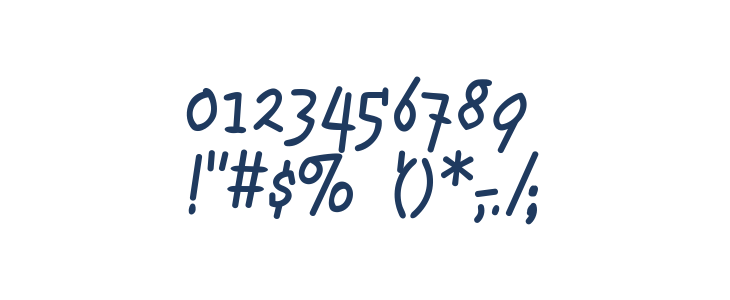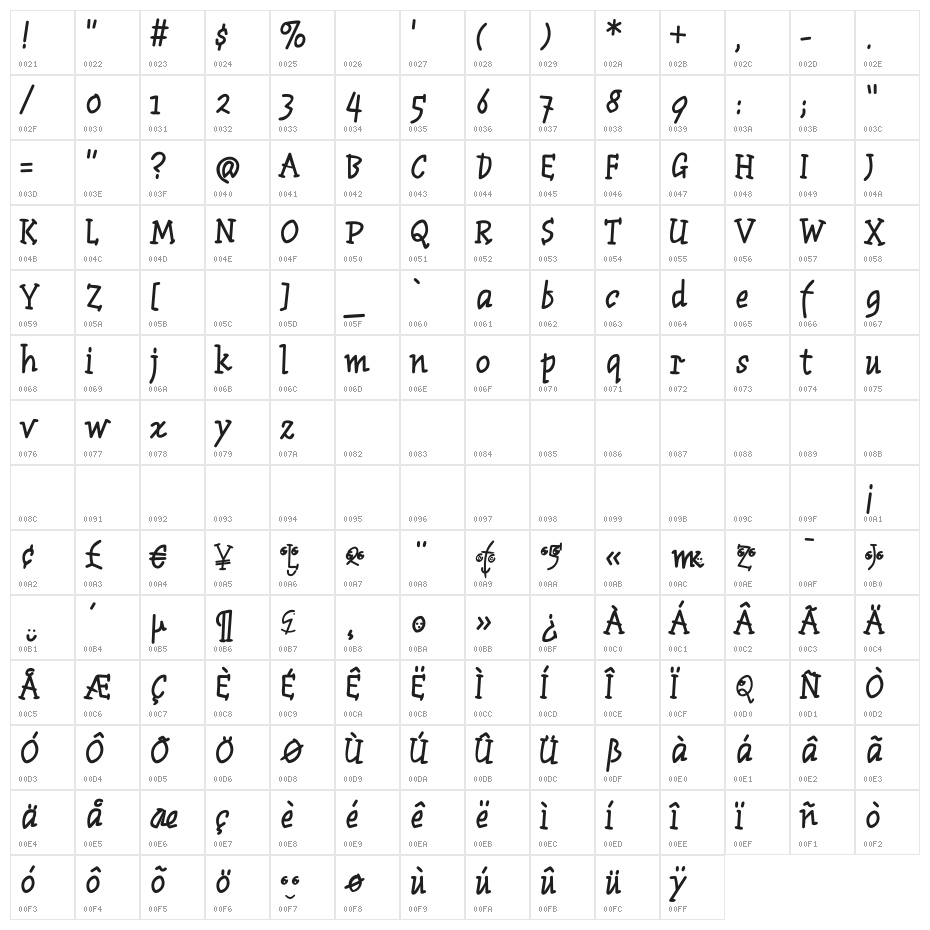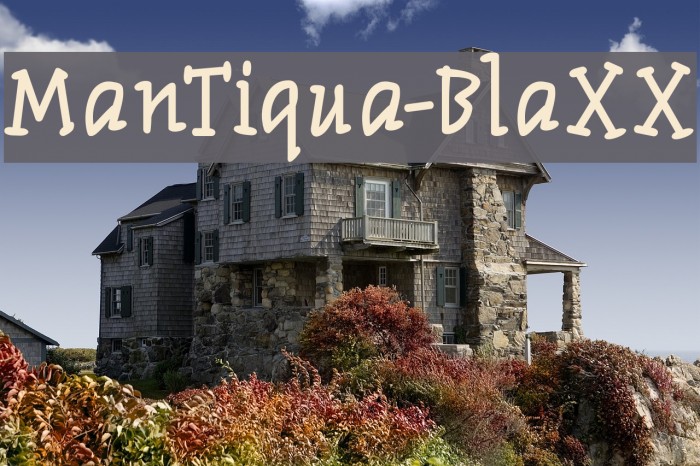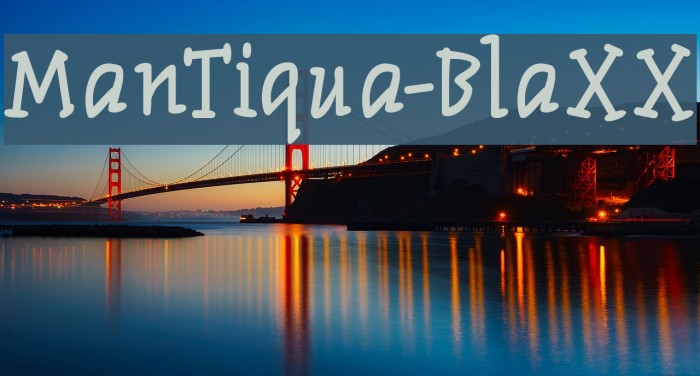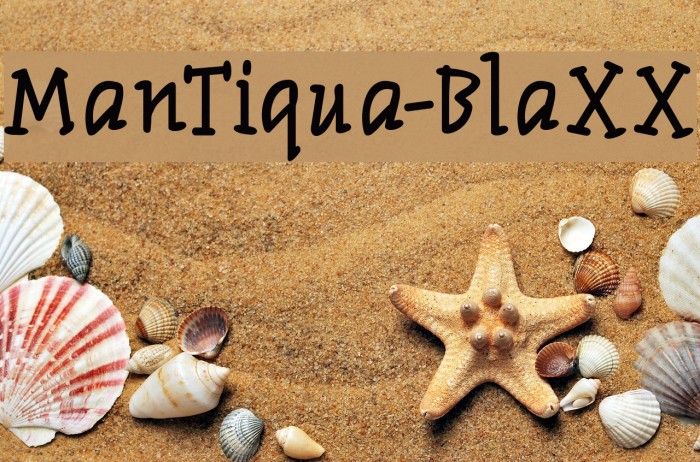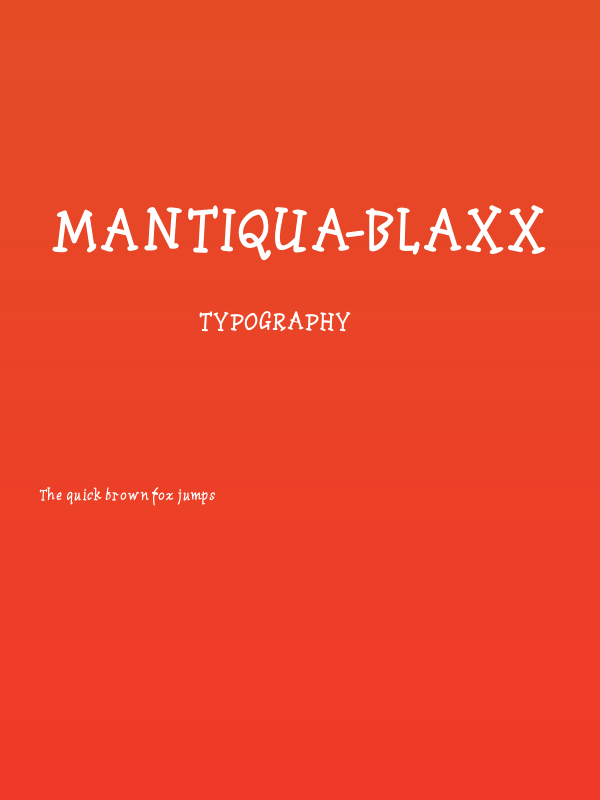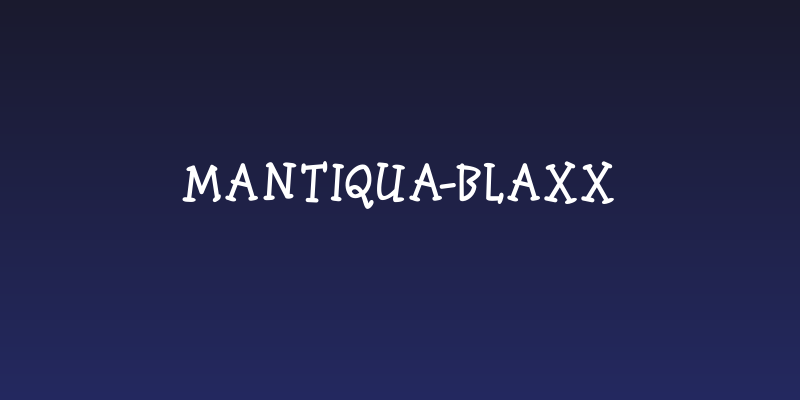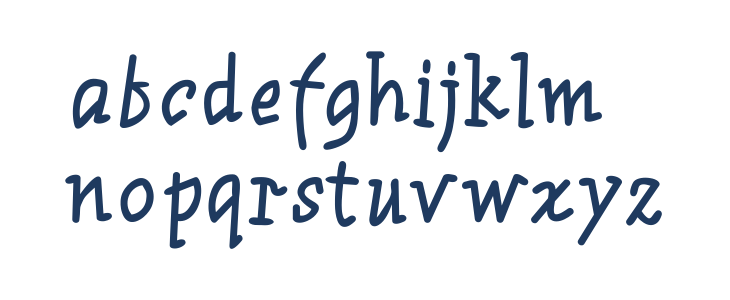
ManTiqua-BlaXX Font
ManTiqua-BlaXX Description
This font features a playful and dynamic style, characterized by its irregular and slightly whimsical letterforms. The uppercase letters exhibit a bold and confident presence, while the lowercase letters maintain a consistent flow with a touch of casual flair. The numerals are distinct and easy to read, complementing the overall aesthetic. Special characters are creatively designed, adding to the font's unique personality. The strokes are moderately thick, providing a strong visual impact without compromising readability. This font is perfect for projects that require a fun and engaging look.